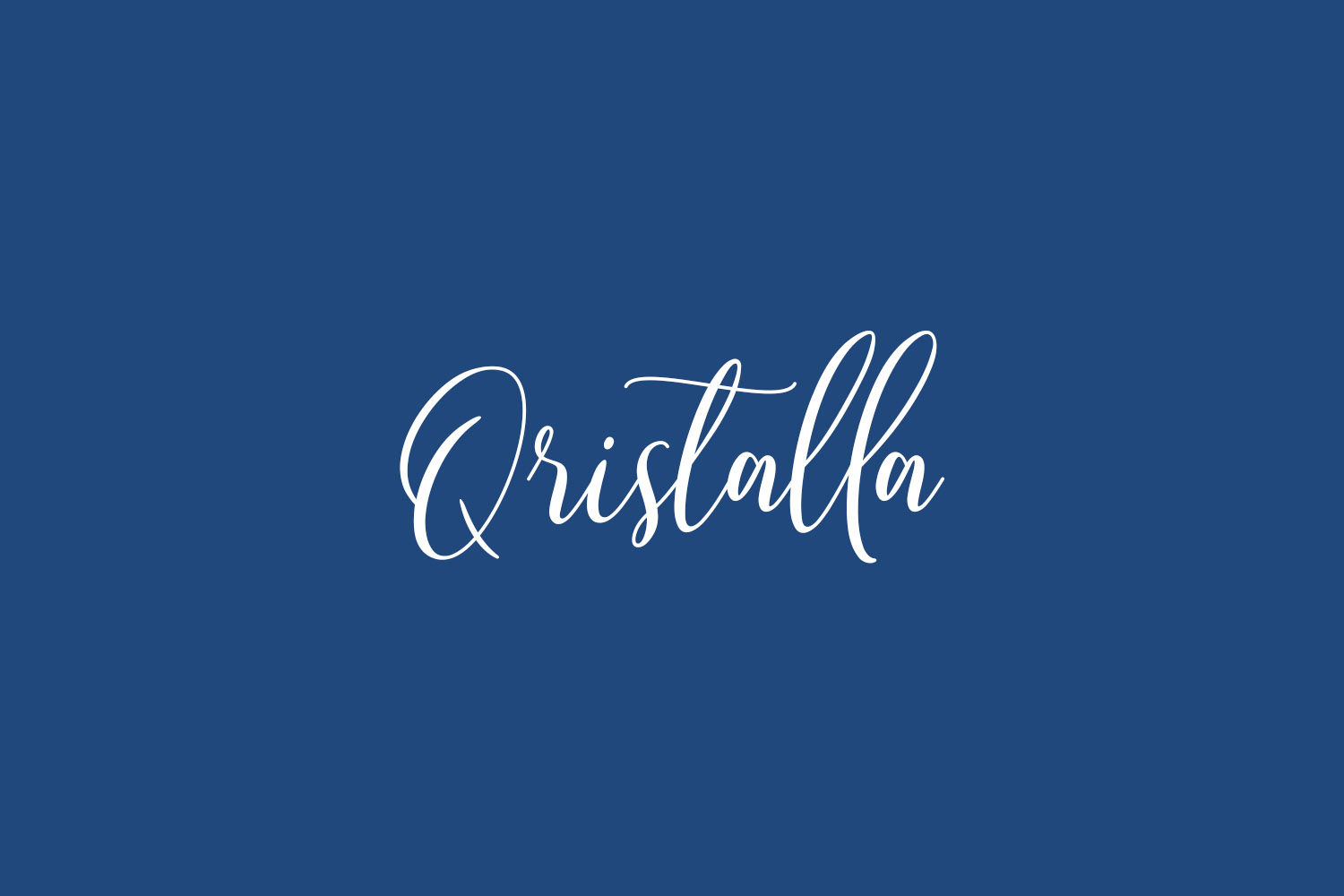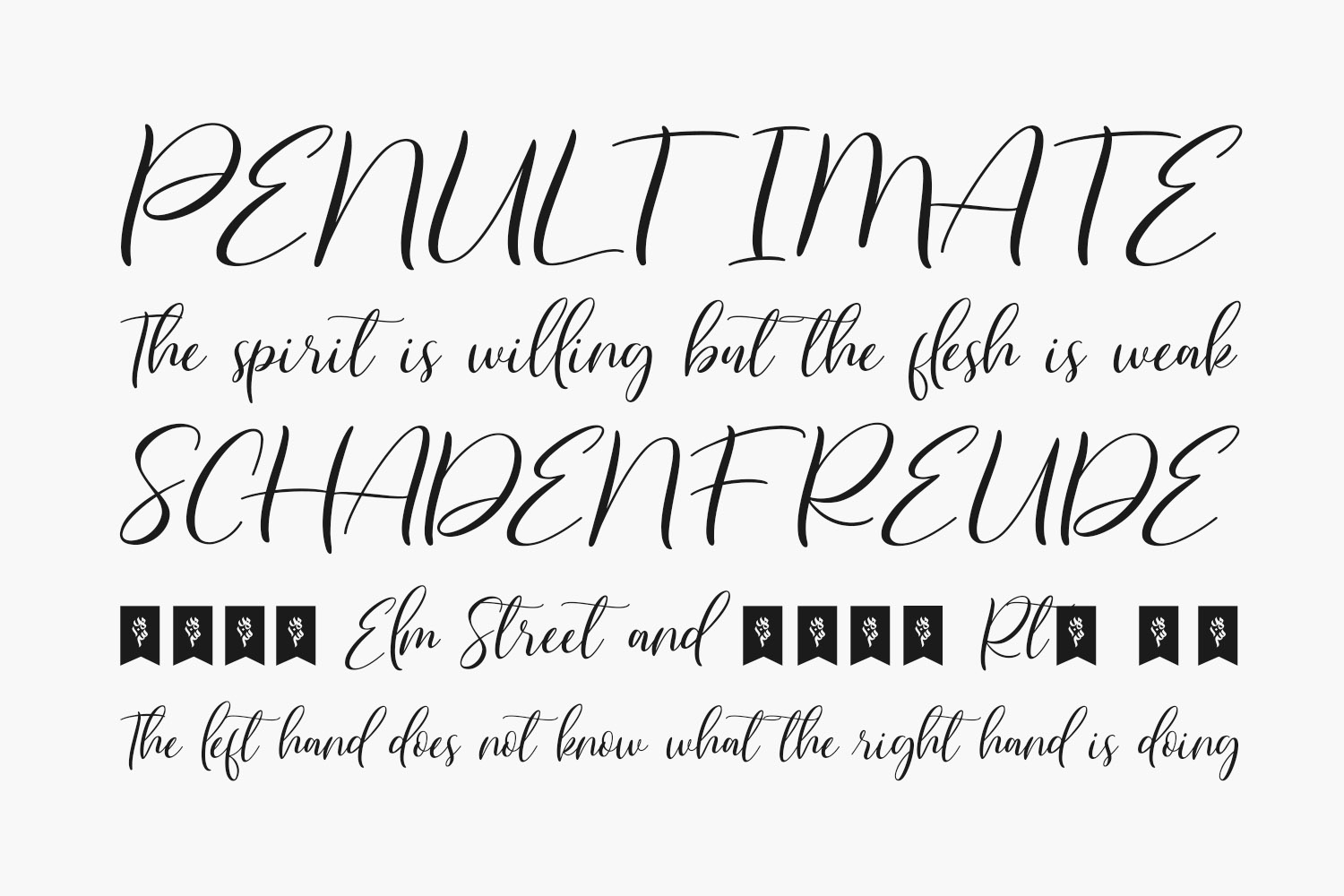
Qristalla Free Font feels incredibly elegant and flowing. It looks stunning on wedding invitations, thank you cards, quotes, greeting cards, logos, business cards, and every other design which needs a handwritten touch. Qristalla Free Font was designed by Cupcake Std is a demo and free for personal use only. Please purchase the full version for commercial use.
Designed by Cupcake Std